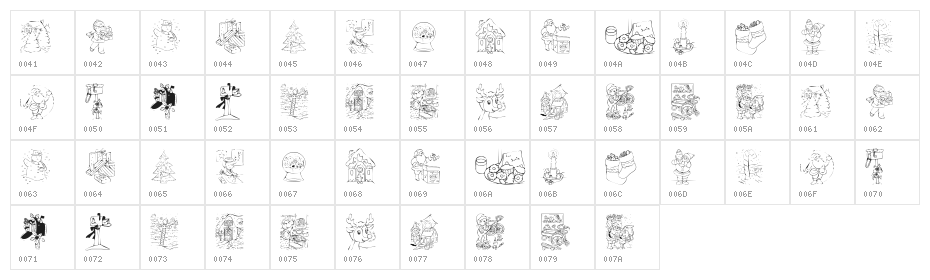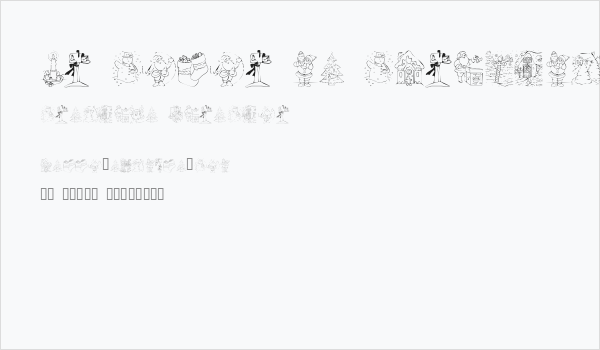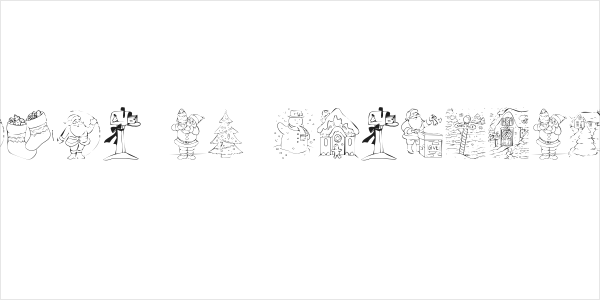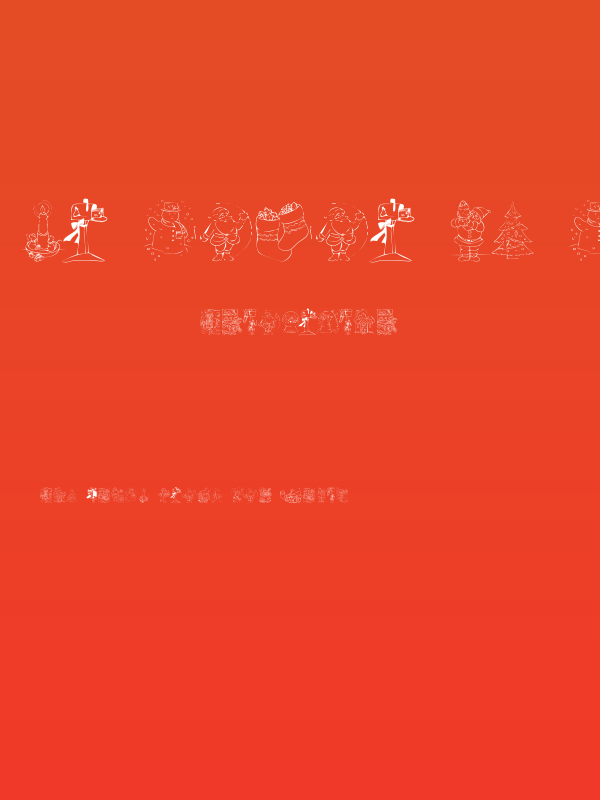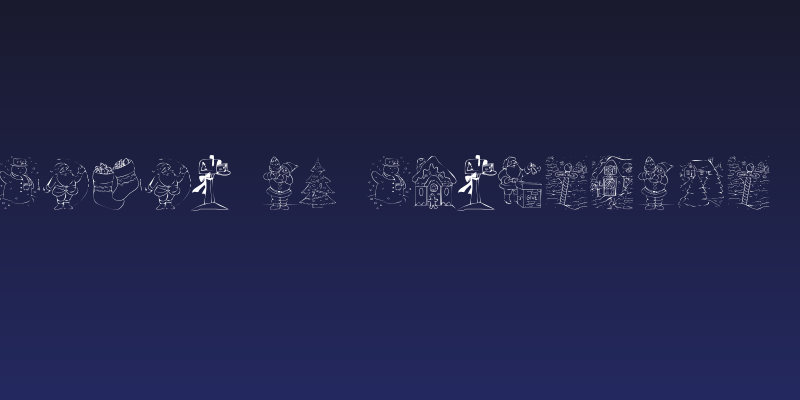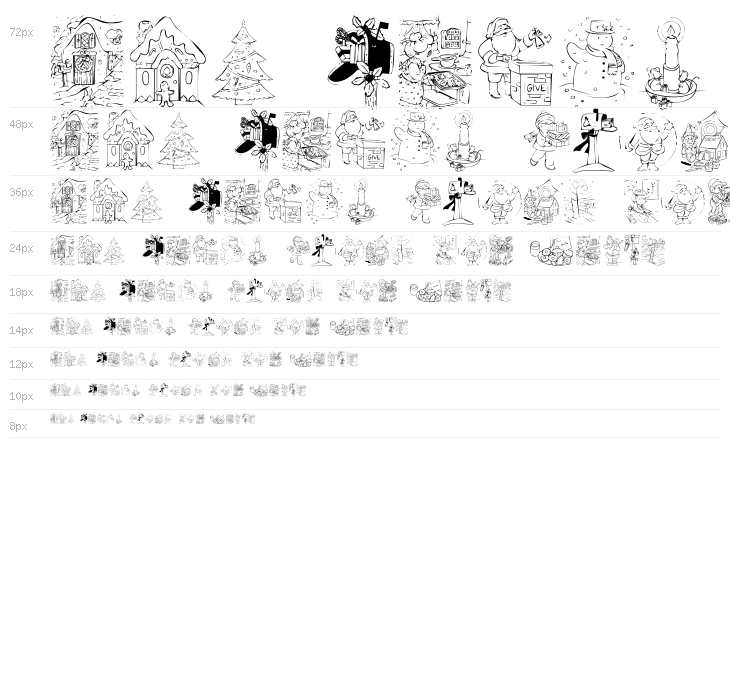
KR Color Me Christmas 2002 Font
KR Color Me Christmas 2002 Description
This is a decorative font featuring a variety of Christmas-themed illustrations. Each character is represented by a unique festive image, such as Santa Claus, Christmas trees, snowmen, reindeer, and other holiday elements. The style is playful and whimsical, capturing the joyful spirit of the holiday season. The illustrations are detailed and designed to be colored, making it ideal for creative projects. The font is not suitable for traditional text but serves as a delightful decorative element.
| Use Case | Decorative elements, Holiday themes |
| Proposed Projects | Ideal for holiday greeting cards, festive invitations, Christmas crafts, and decorative posters. |